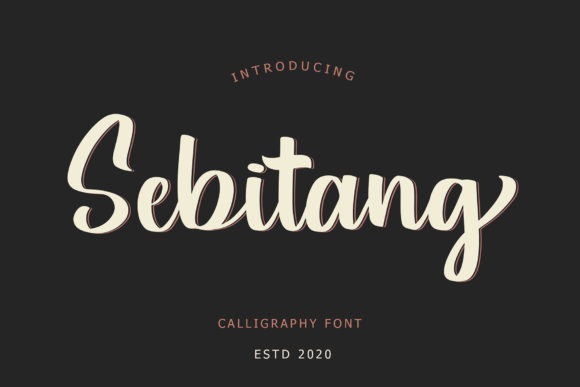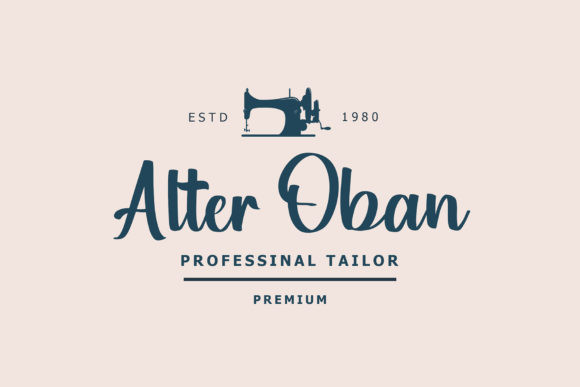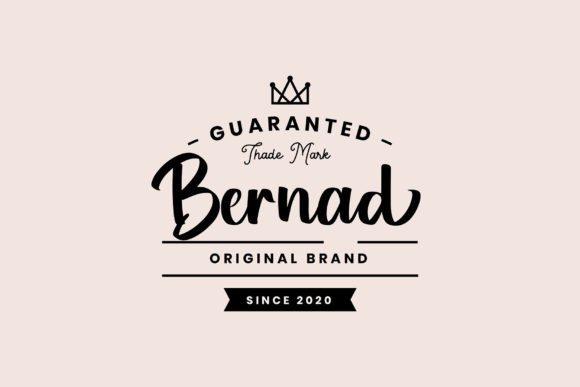
Sebitang Font
Sebitang FontSebitang is a beautiful calligraphy font, featuring a graceful feel.
It can be used for various purposes such as logos, wedding invitations, headings, t-shirts, letterhead, signage, labels, news, posters, badges and so much more. This font is PUA encoded which means you can access all of the glyphs and swashes with ease!